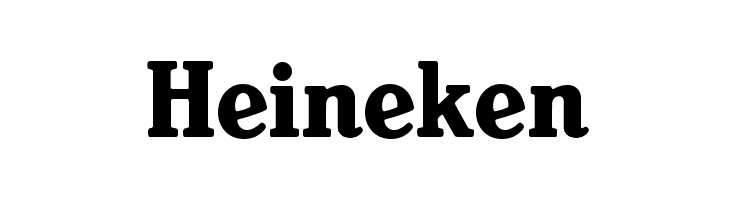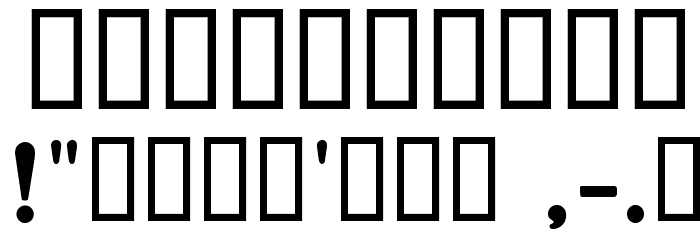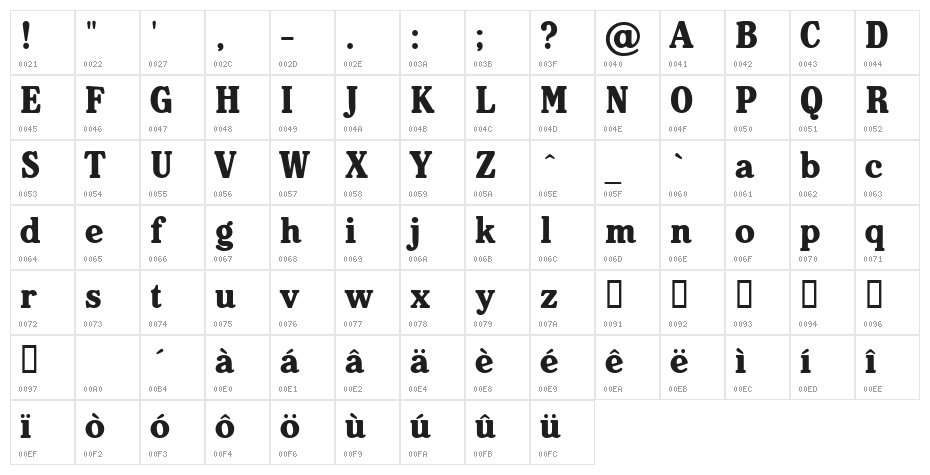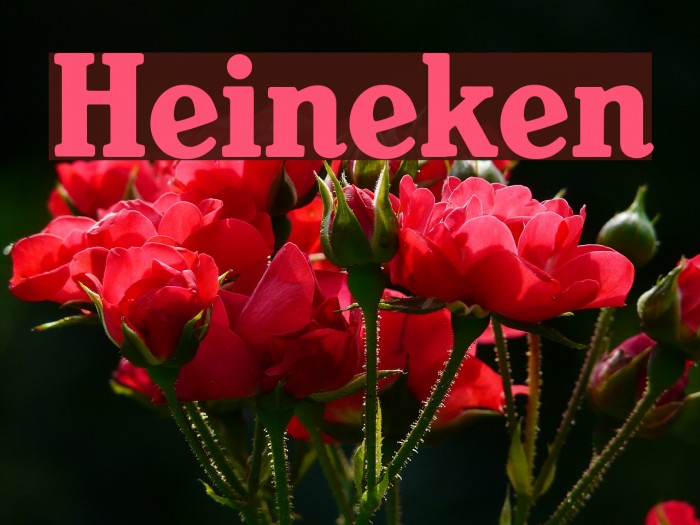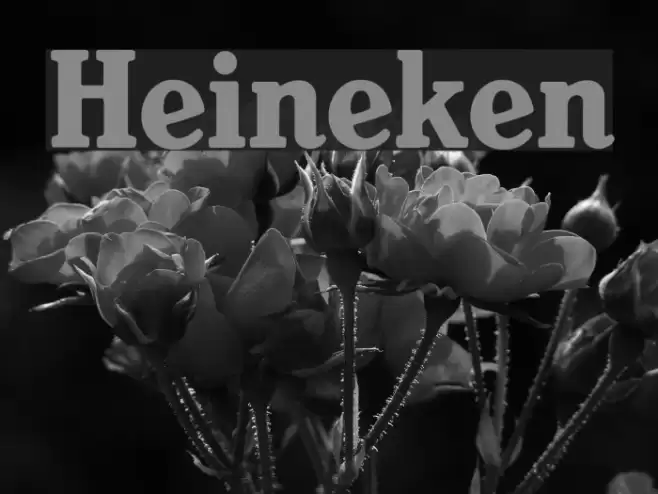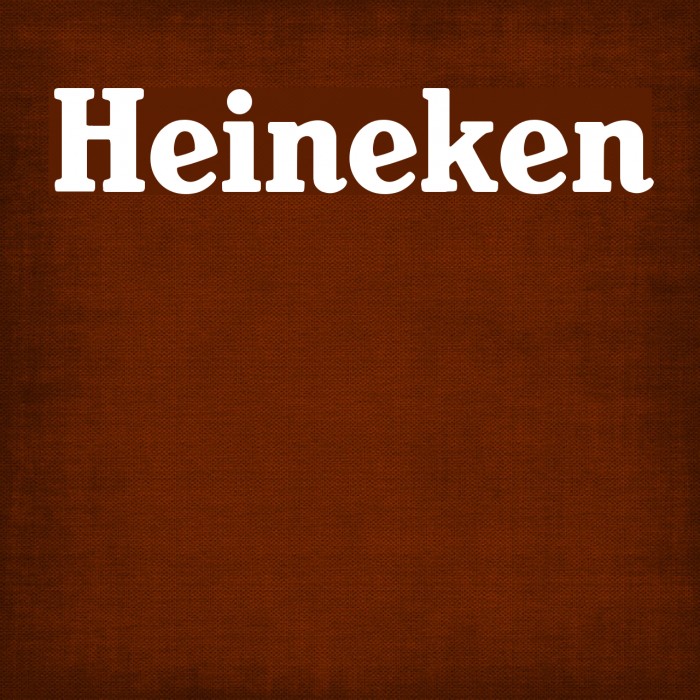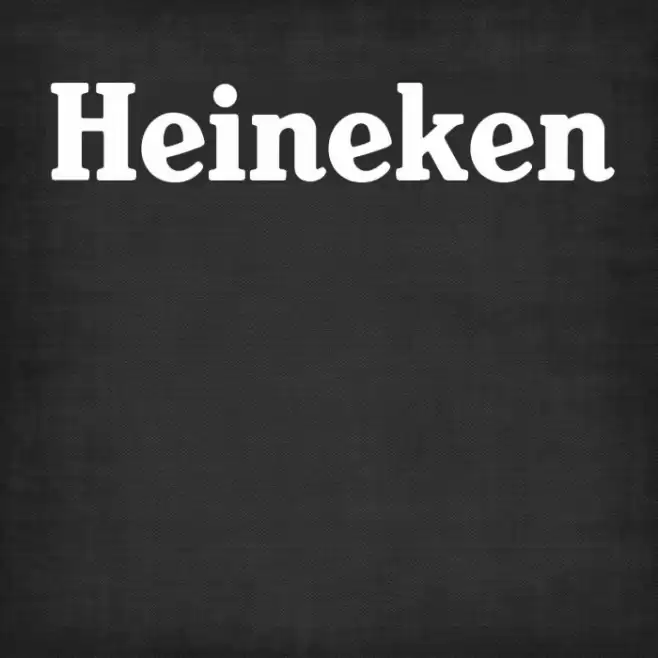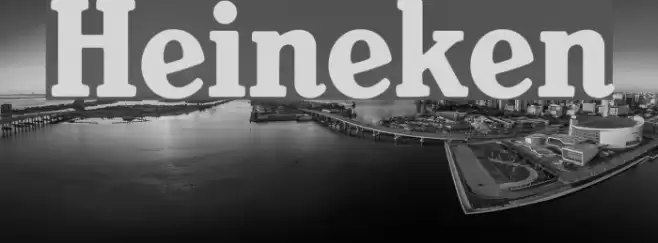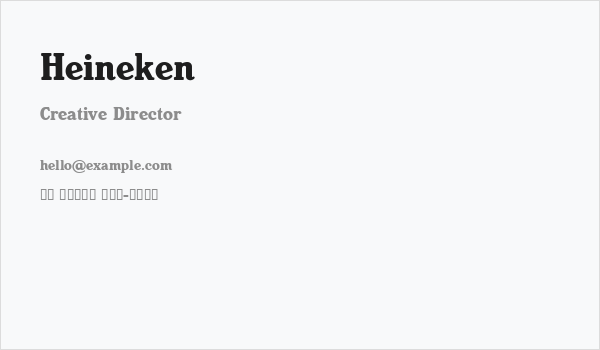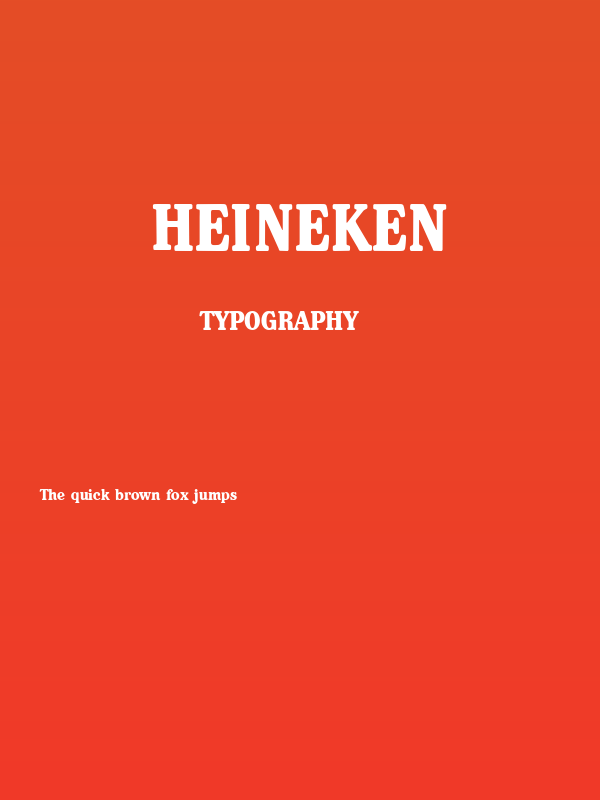
Heineken Font
Heineken Description
This font features a bold and robust serif style with strong, pronounced strokes and a classic appearance. The serifs are thick and slightly curved, giving the typeface a traditional yet approachable feel. The uppercase letters are uniform in height, while the lowercase letters maintain a consistent baseline with slight variations in ascender and descender lengths. The numbers are clear and legible, matching the overall boldness of the alphabet. Special characters are designed to complement the letters, maintaining the same weight and style. This font is ideal for creating a strong visual impact while retaining readability.